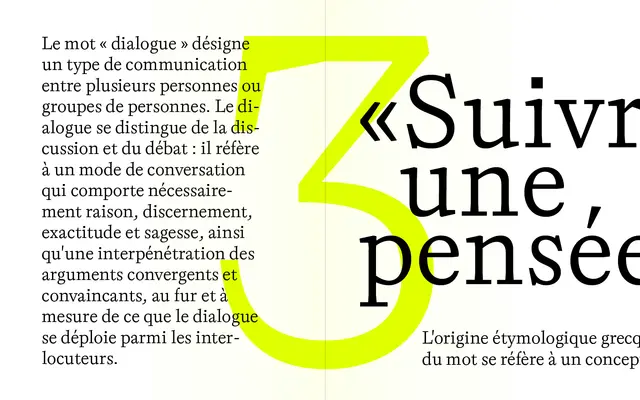
Dialogue
A garalde serif by Cosimo Lorenzo Pancini and Andrea Tartarelli that fuses Venetian renaissance proportions with sharper, more contemporary detailing across two distinct stylistic subfamilies.
Built on the old-style letterform tradition of Francesco Griffo and 15th-century Venice, the typeface applies crisp edges and deliberate structural tension alongside the high readability characteristic of humanist serifs. Two subfamilies, Dialogue A and Dialogue B, offer contrasting interpretations of the same formal vocabulary, with six weights and matching italics in each. Non-standard punctuation and conversation-specific symbols are accessible via OpenType features, and the full family includes variable font files for both upright and italic axes.
Dialogue is explicitly rooted in garalde letterforms traceable to Francesco Griffo and 15th-century Venetian punchcutting, placing it firmly in the old-style/venetian serif tradition, with the added tension of brutalist sharpness applied to renaissance proportions.